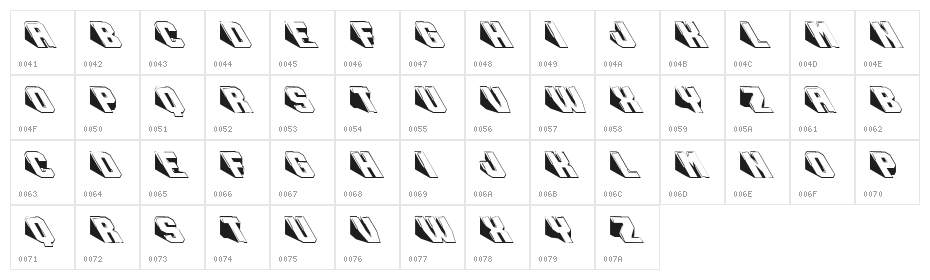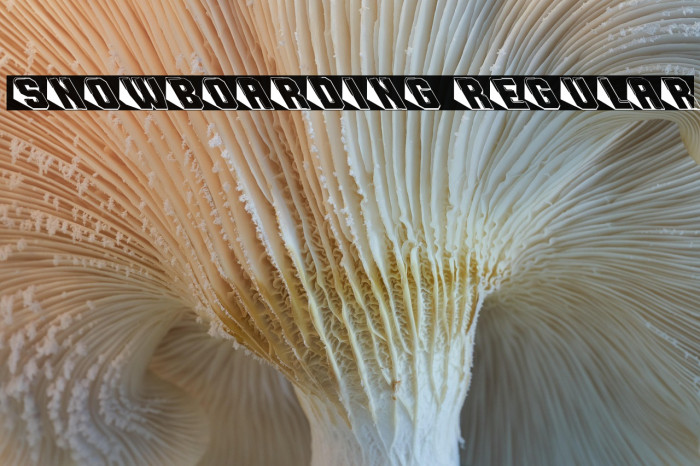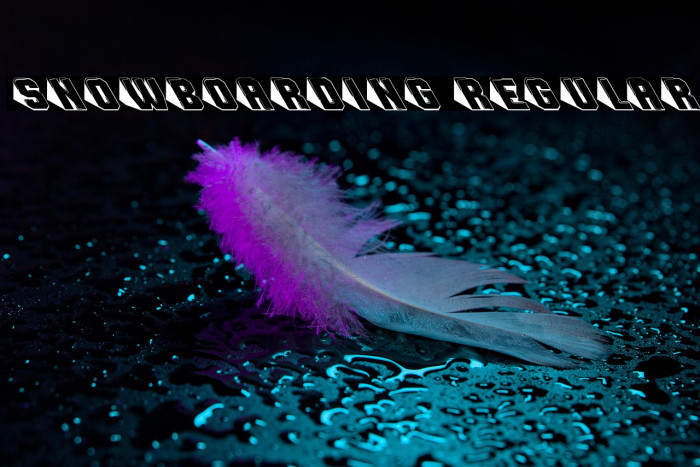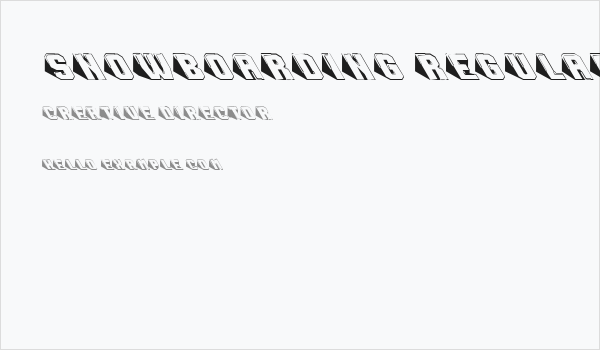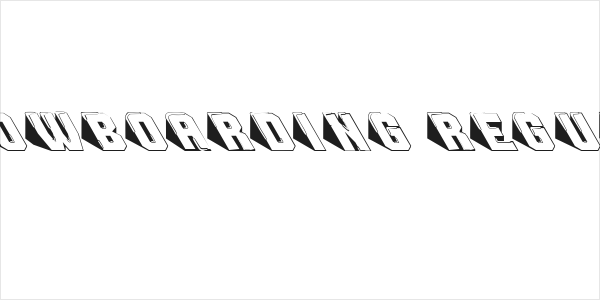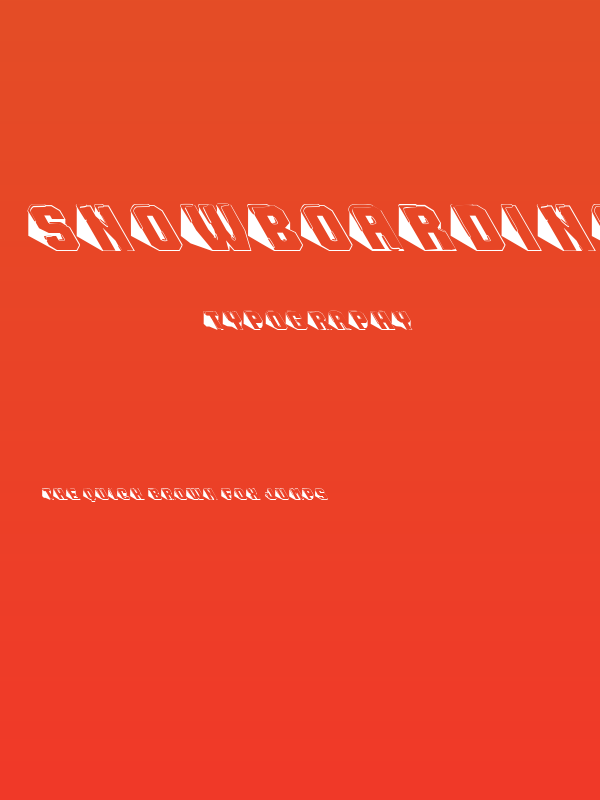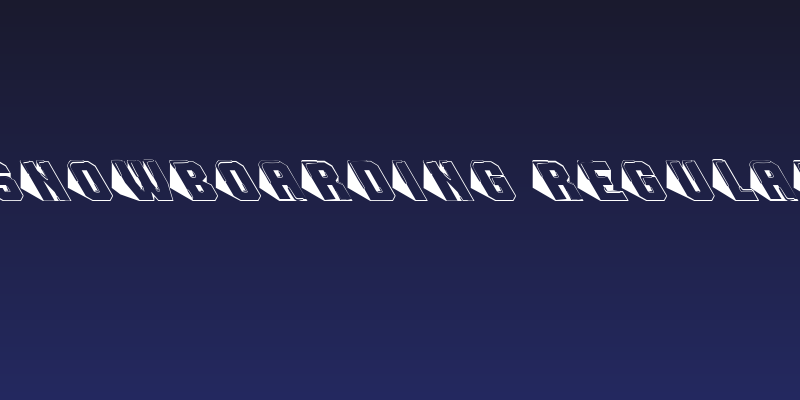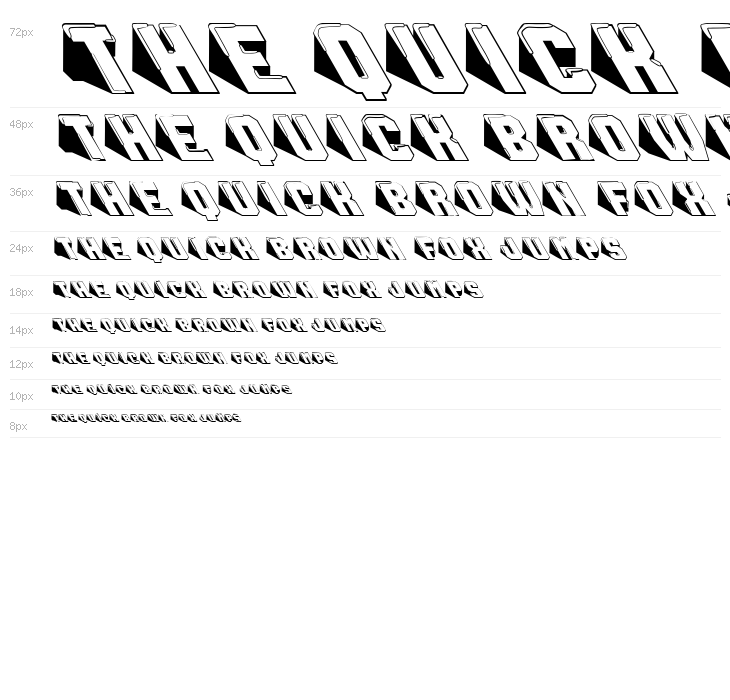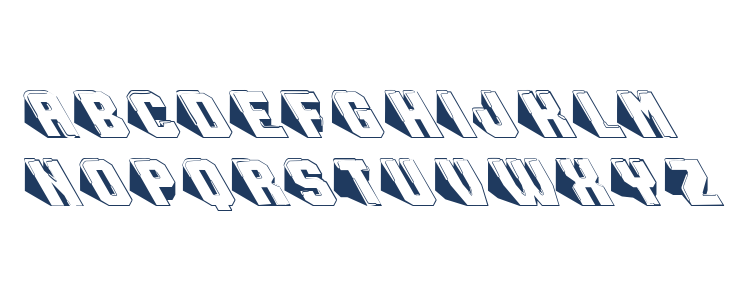
Snowboarding Regular Font
Snowboarding Regular Description
This font features a bold, three-dimensional design that gives each character a striking, shadowed appearance. The letters are uppercase and have a blocky, geometric structure with sharp angles and clean lines. The shadow effect adds depth and a sense of movement, making the font highly dynamic and eye-catching. It is ideal for creating a strong visual impact and is suitable for various creative applications. The style is reminiscent of retro and urban design elements, offering a unique blend of modern and vintage aesthetics.
| Overall Style | Modern, Vintage |
| Proposed Projects | Ideal for posters, logos, headlines, and any design requiring a bold, attention-grabbing typeface. |